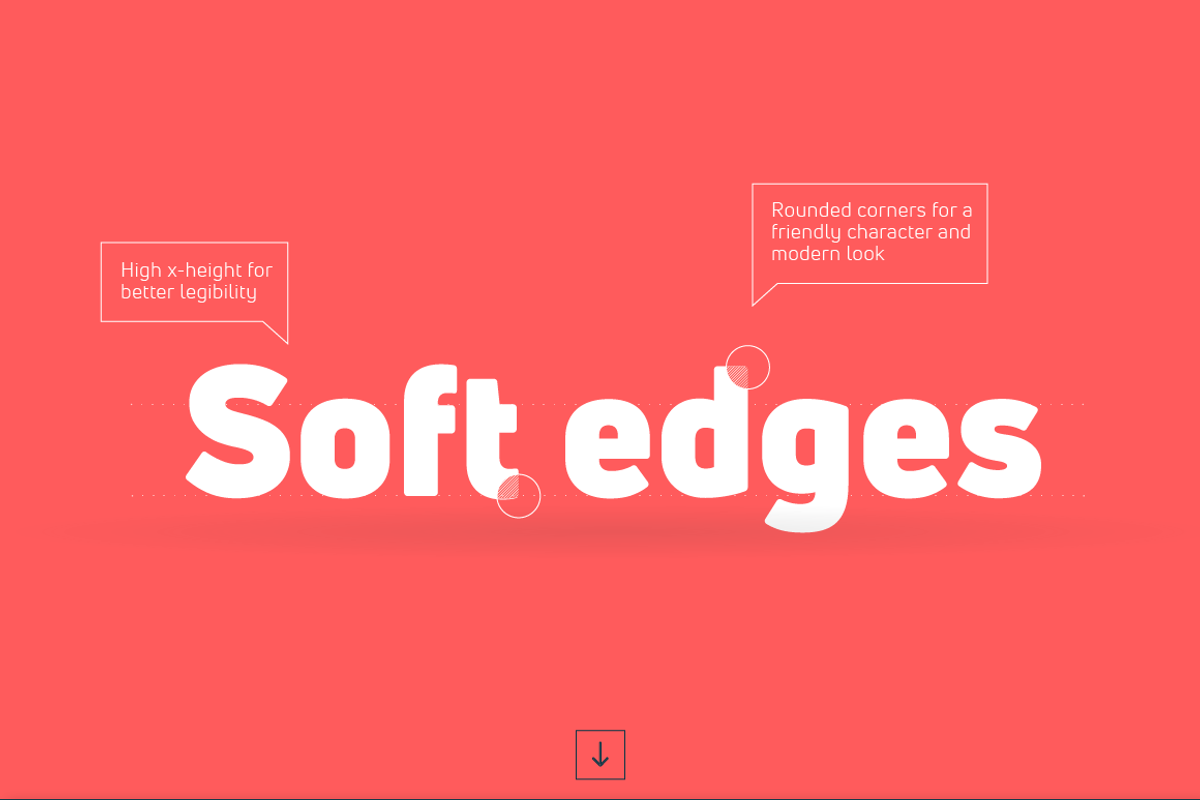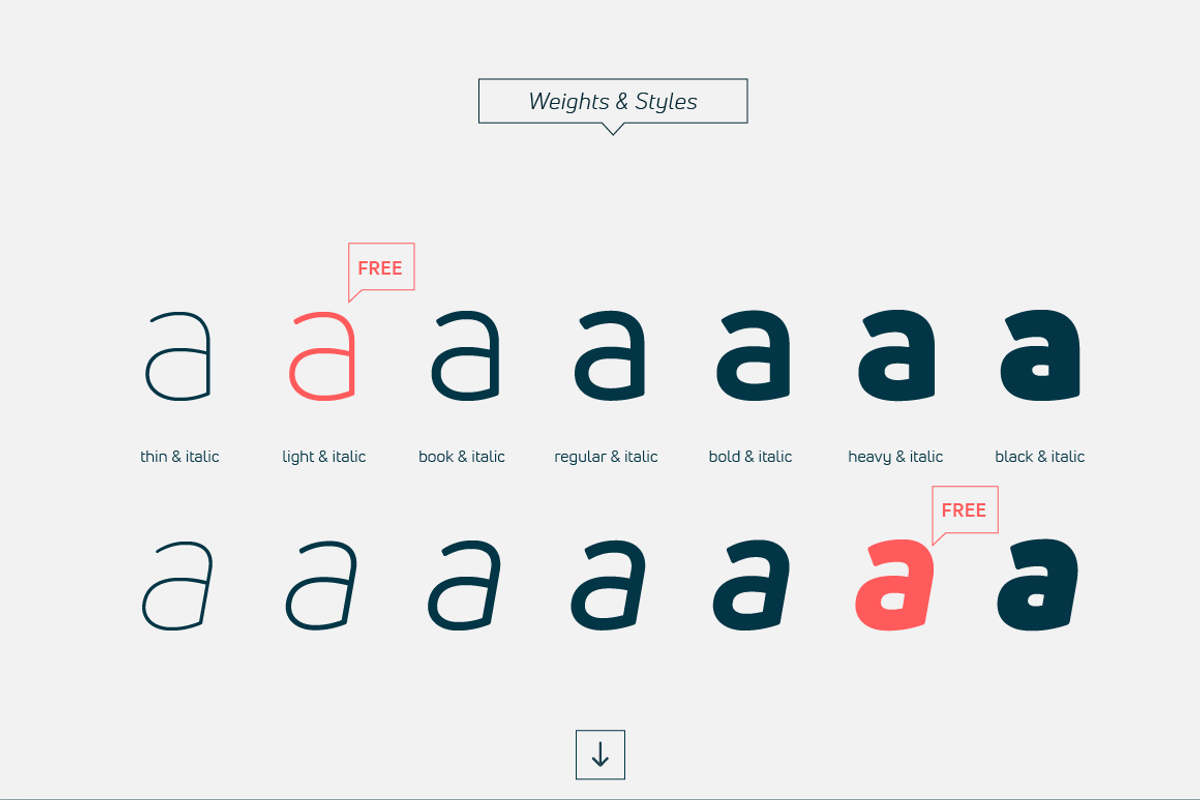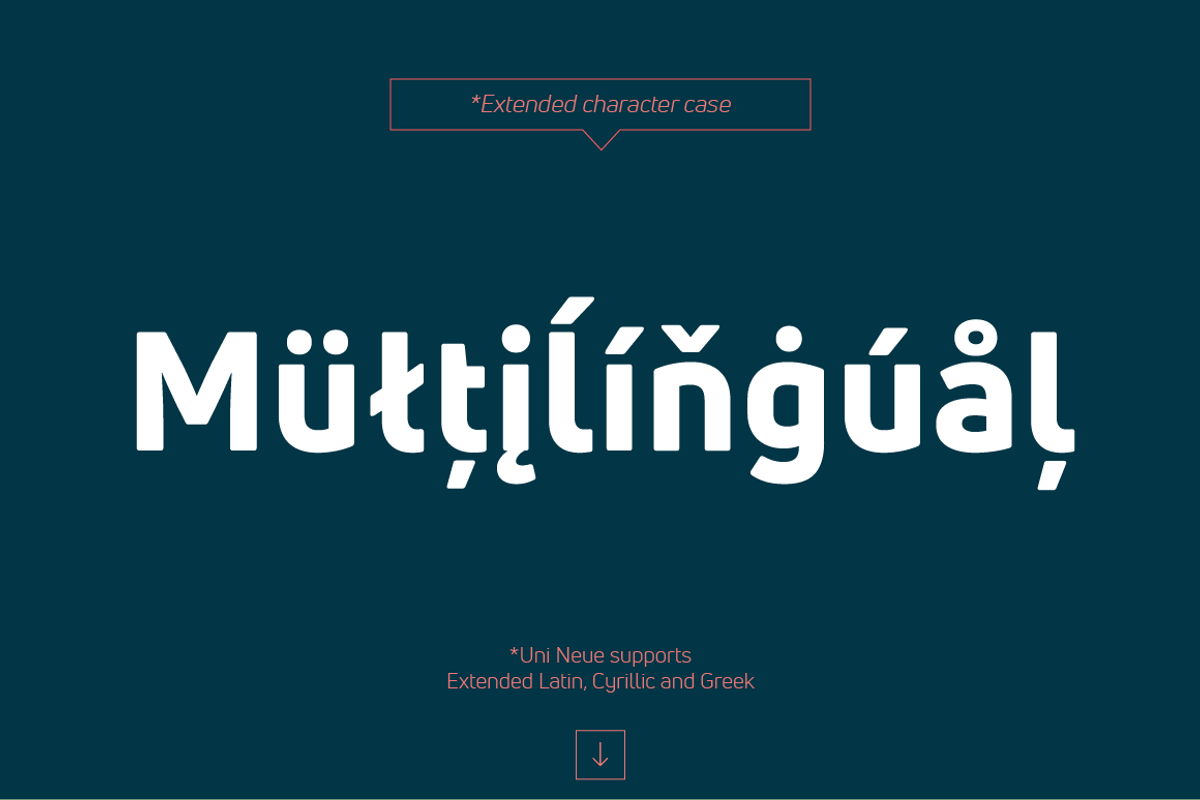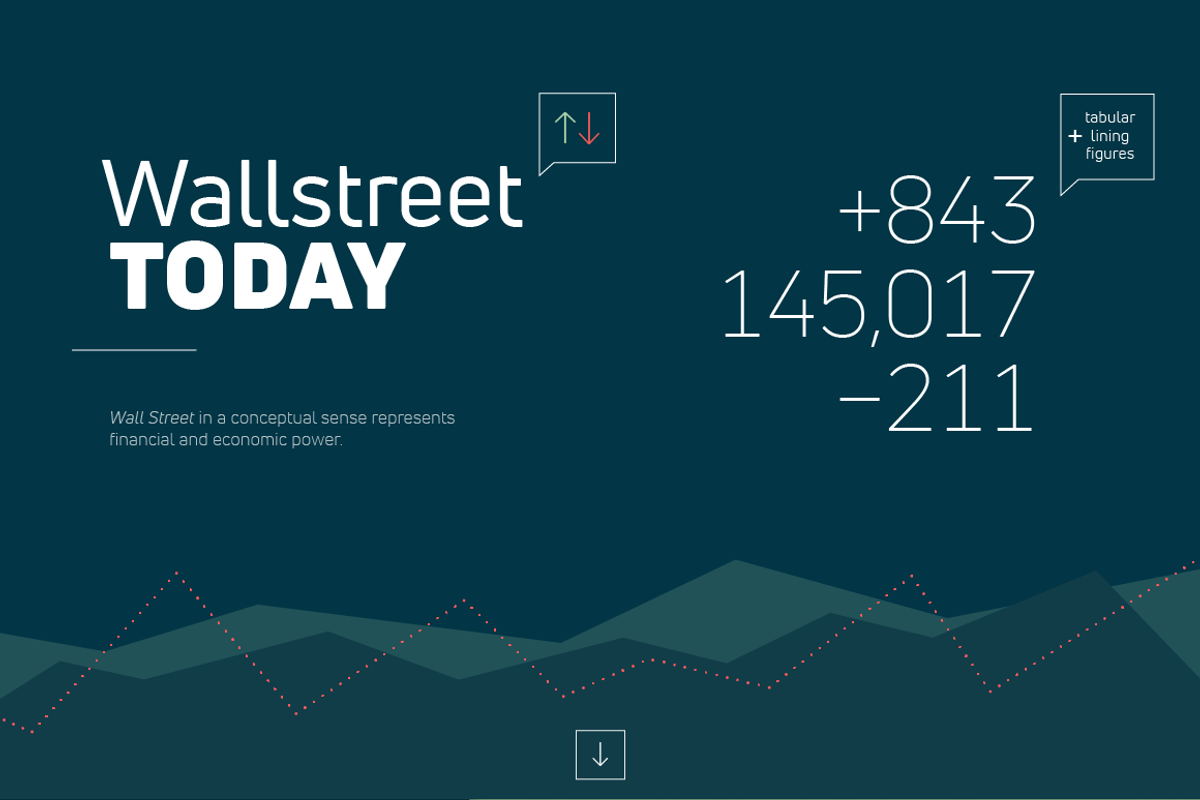
Uni Neue Font Family
Uni Neue Font Family by Fontfabric is a font selected for branding, posters, packaging, typography.
Why Uni Neue Font Family is worth a look
Uni Neue Font Family by Fontfabric fits naturally into Branding, posters, packaging, typography.